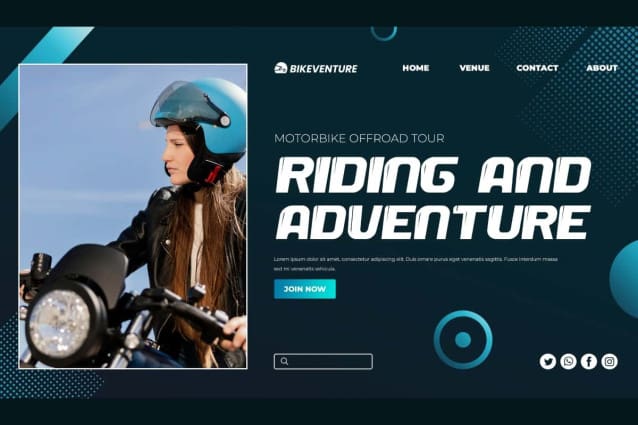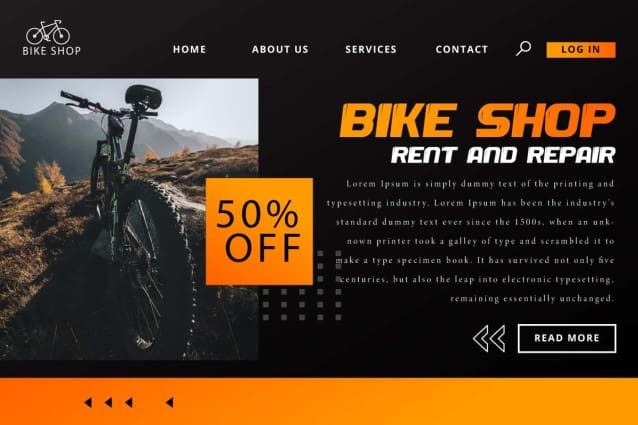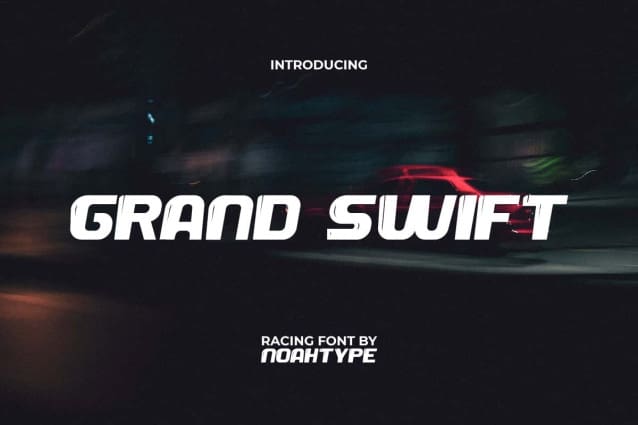
Grand Swift Font
Grand Swift Font is a racing themed display font with stroke effects on each corner of the letter creating a real and consistent embossed look. It’s absolutely stunning with wide modern fonts as well as dynamic slant making it suitable in sports applications and versatile for other things too, such as apparel, automotive, clothing brand, coffee shop, fashion, games, graphic design, photography, racing, spare parts store, sports events, sportwear, etc.
Grand Swift Font includes a complete set of ALL CAPS for both Uppercase and Lowercase Basic Characters, Numerals, Punctuation, and Symbol. We designed it specifically inspired by racing sports. This font is perfect for adding punch to your projects without losing readability or impact at small sizes. It’s a perfect choice for any of your design projects, such as blogs, headers, labels, poster, product packaging, screen printing design, stationery, title, website, and more!